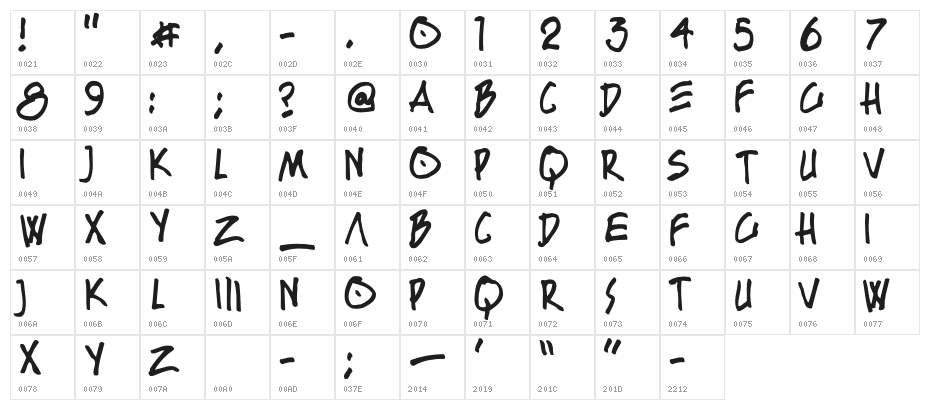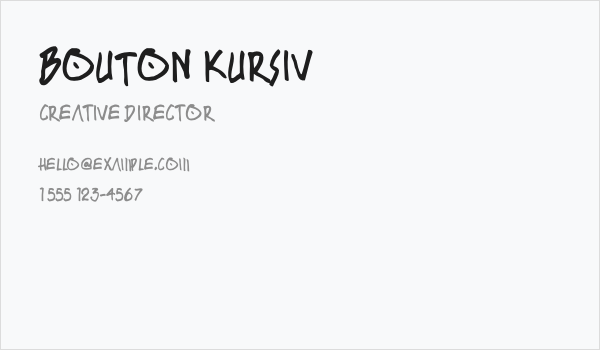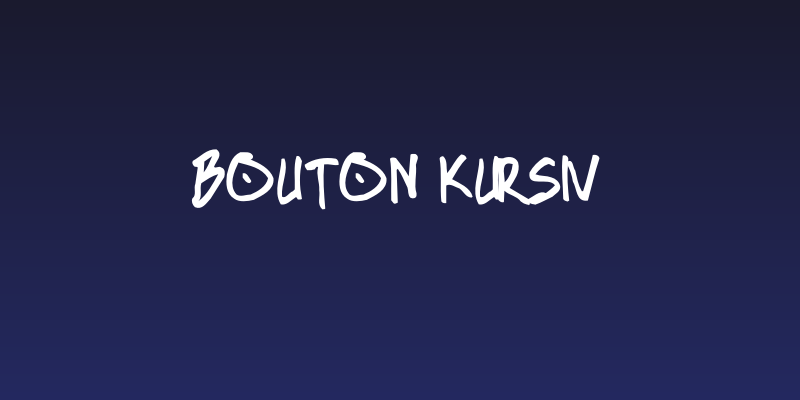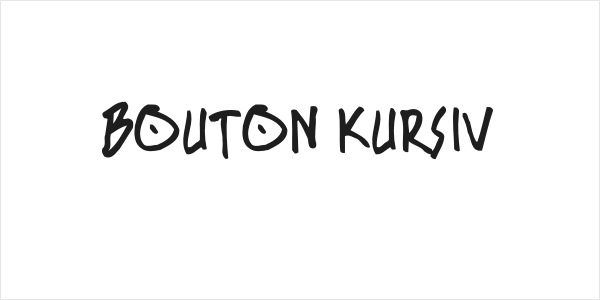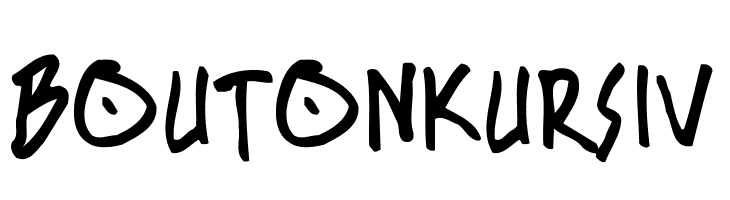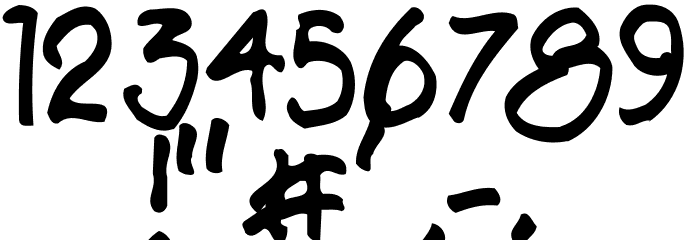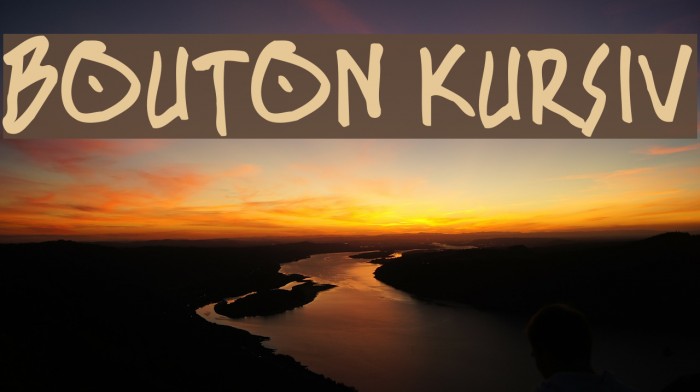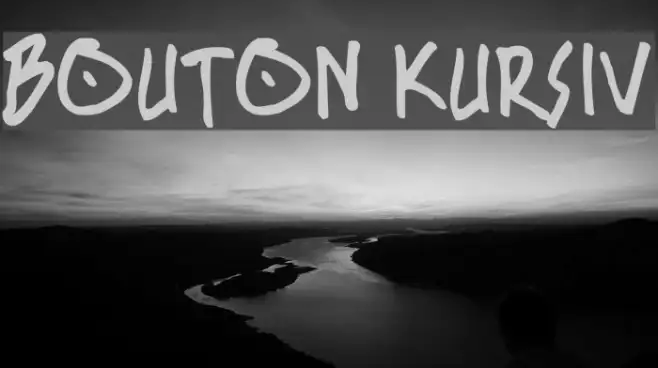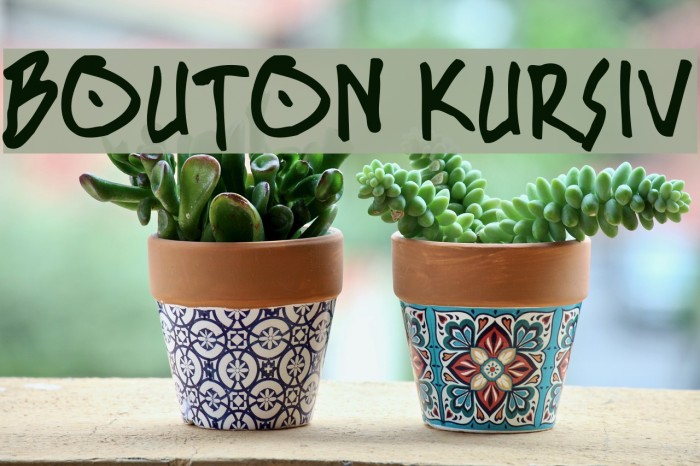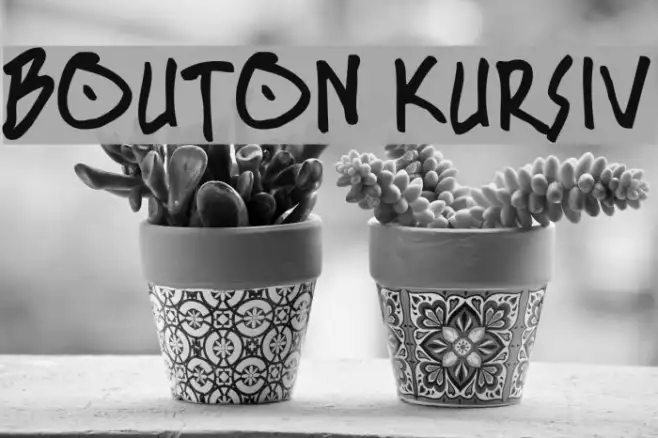
BOUTON Kursiv Font
BOUTON Kursiv Description
This font exhibits a bold, handwritten style with a casual and energetic appearance. The characters are slightly slanted, giving it a dynamic and informal feel. The strokes are thick and consistent, with a playful and artistic touch that suggests a sense of movement. The uppercase and lowercase letters maintain a cohesive look, while the numbers and special characters complement the overall style. The font's design is expressive, making it suitable for projects that require a personal and creative touch.
| Proposed Projects | Ideal for creative projects such as posters, invitations, and branding materials that require a personal and artistic flair. |